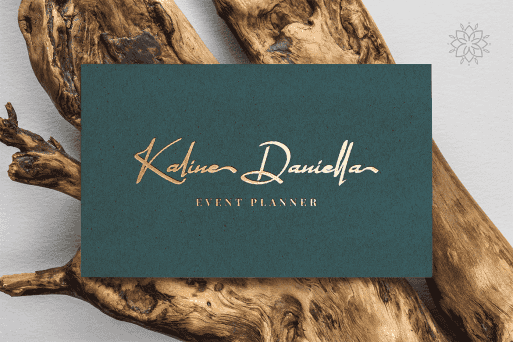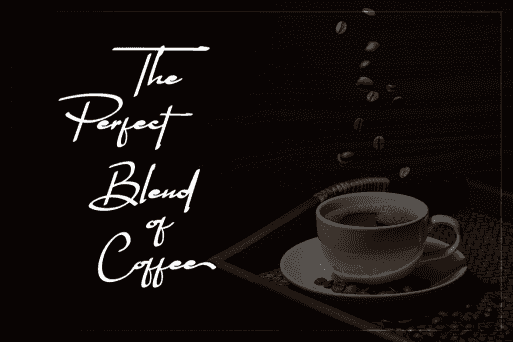
Quagralle is good handwriting signature font style. It makes it easier to communicate your message through your designs. Quagralle Font includes full set of beautiful alphabets, both lower and upper case. as well as multilingual symbols numbers, numerals, punctuation, and ligatures.